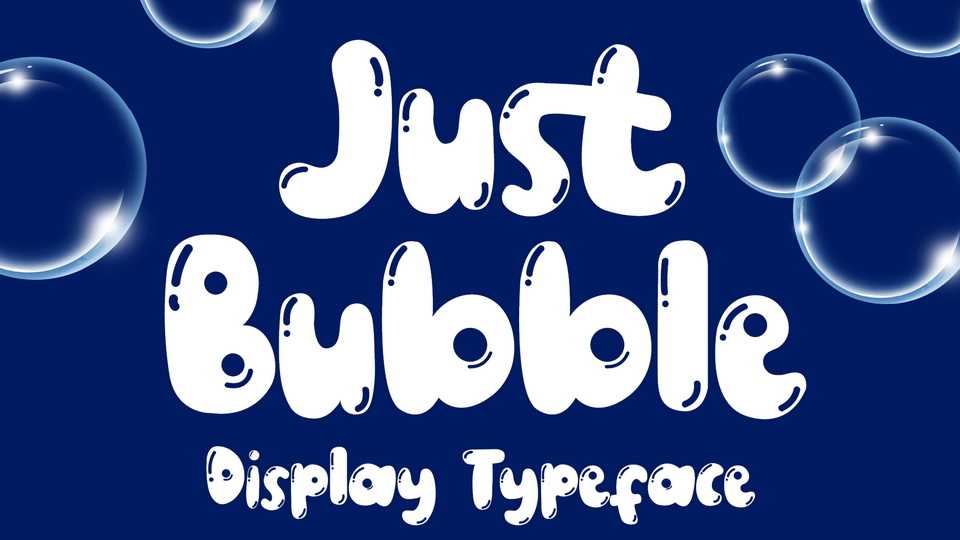
Download Just Bubble font, a cute display typeface that resembles the shape of balloons. Just Bubble will add an incredibly playful touch to any of your craftings.
Designer: Jetsmax Studio